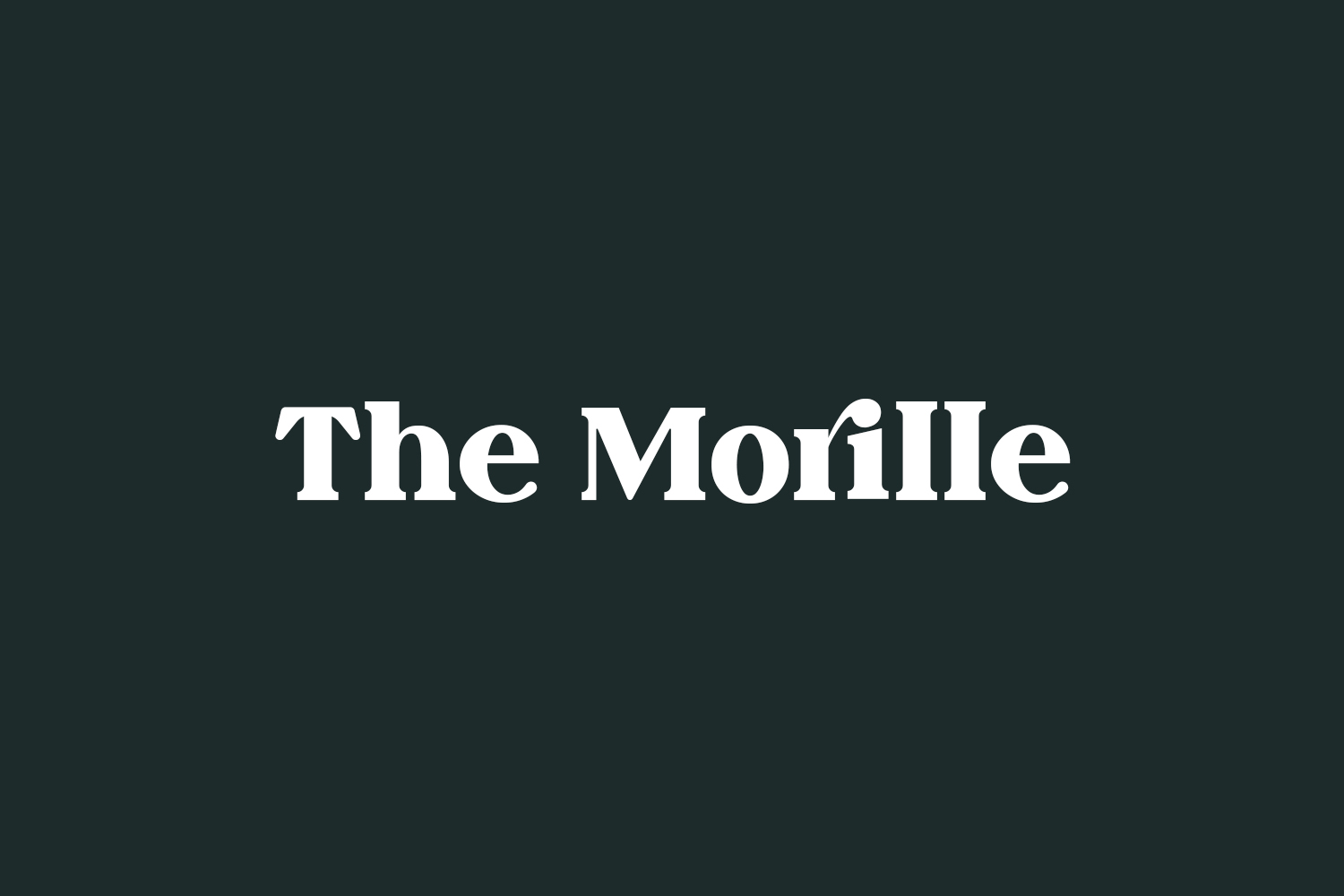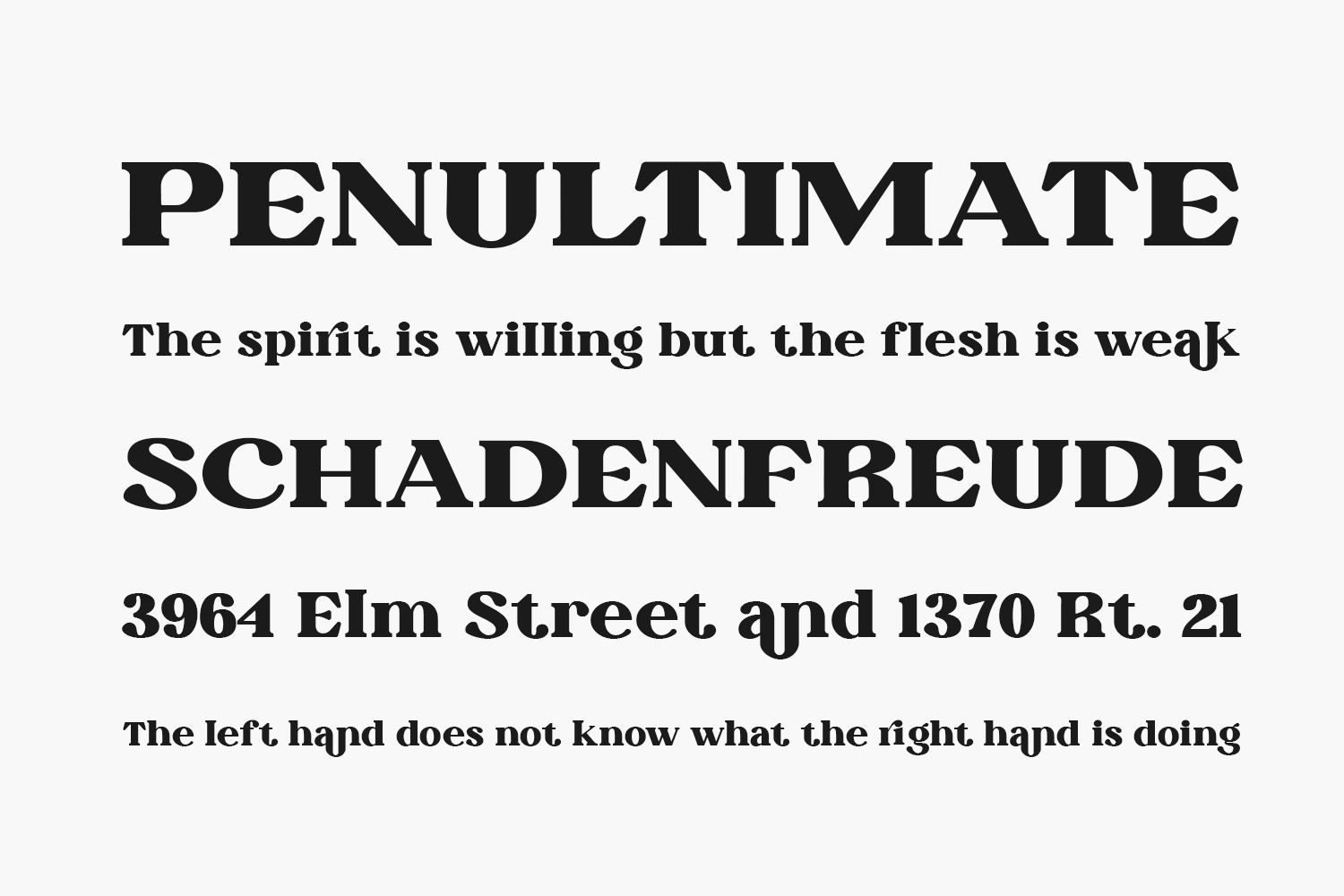
The Morille Free Font is a bold and assertive serif font. Add it confidently to your projects, and you will love the results. The Morille Free Font is free for personal use only. Please purchase the full version for commercial use.
Designed by Wildan Type